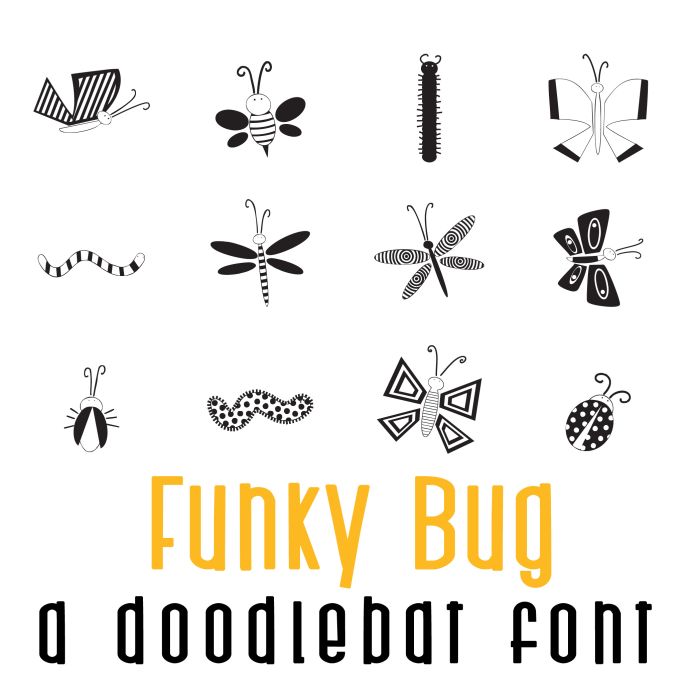
Funky Bug Doodlebat Font
This doodlebat font features 26 funky bugs and insects! Perfect for classrooms, teachers, gifts, decor, scrap book pages, planner stickers and more!